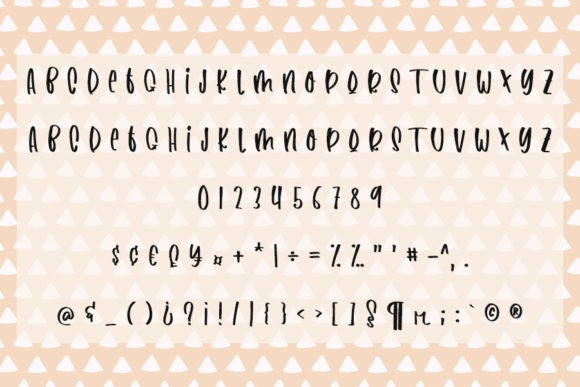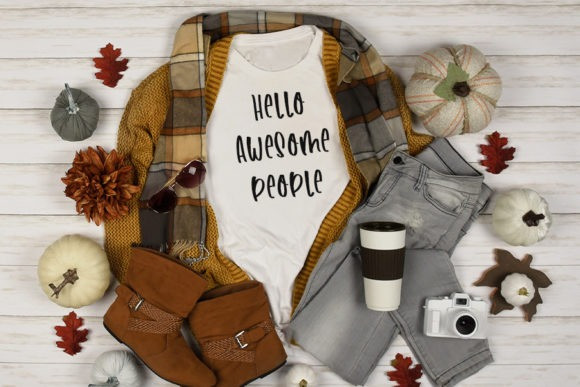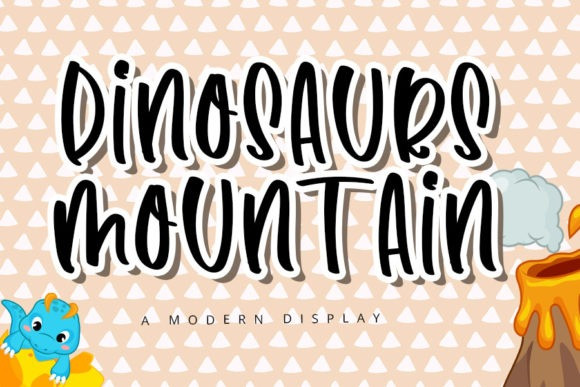
Dinosaurs Mountain Font
Dinosaurs Mountain Display Font is a well-balanced, cheery and delicate handwritten font. Whether you’re looking for fonts for Instagram or calligraphy scripts for DIY projects, this font will turn any creative idea into a true piece of art!